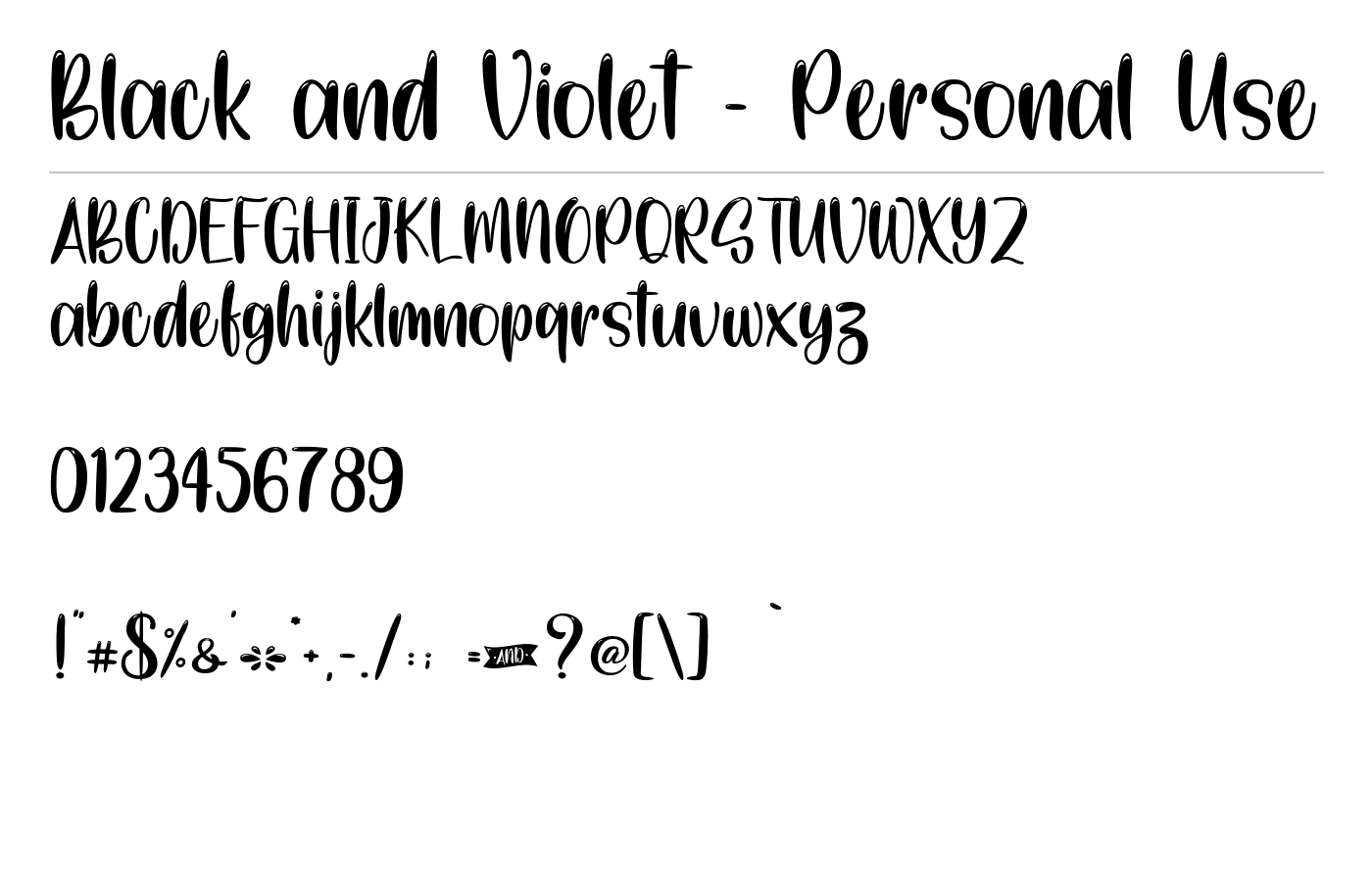
Black and Violet is a playful handwritten font with a casual, friendly vibe, featuring rounded strokes and varying letter heights that give it a lively, informal feel. Its medium weight and upright style make it ideal for creative projects like invitations, greeting cards, and branding that seeks a warm, approachable personality. This font works well in headlines or short texts where a personal, artistic touch is desired.
Black and Violet - Personal Use Font
About Black and Violet - Personal Use Font
| Font family | Black and Violet - Personal Use Font |
| Designer | Typhoon Type™ - Suthi Srisopha |